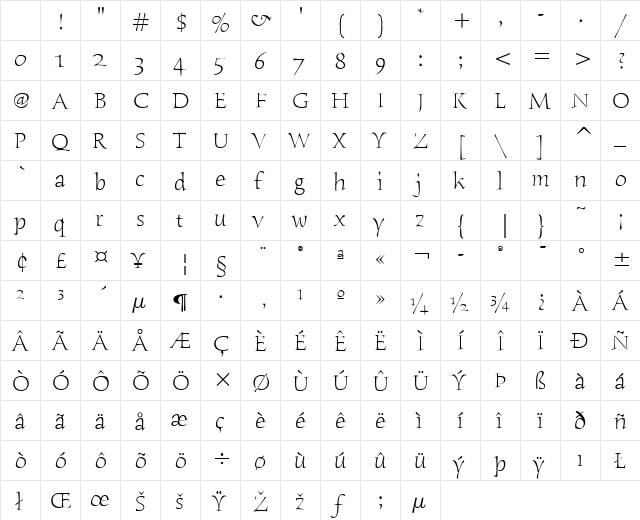
Complete Humana Serif ITC Light glyph index. Displaying only characters natively supported by Humana Serif ITC Light font.
Humana Serif ITC carries the refined structure of traditional serif typography, with bracketed terminals and considered proportions that communicate credibility and craft. Its slender proportions lend an understated elegance to any composition.